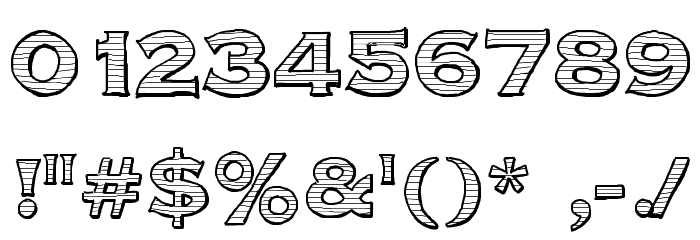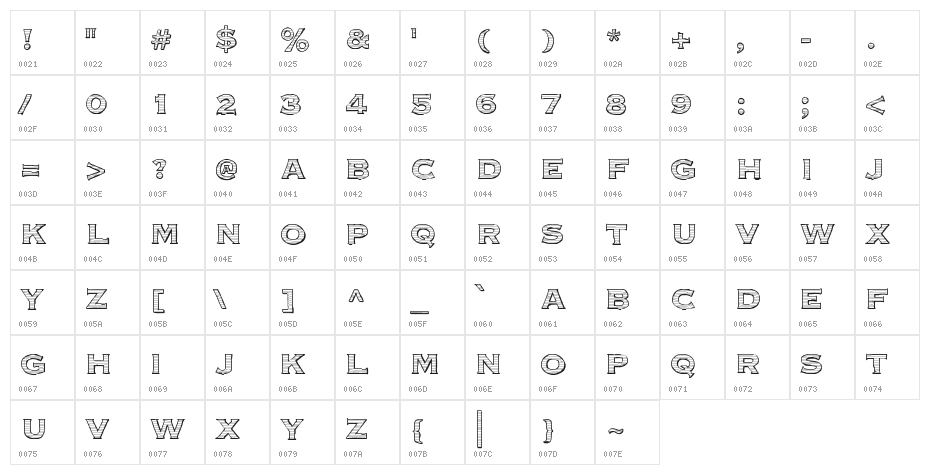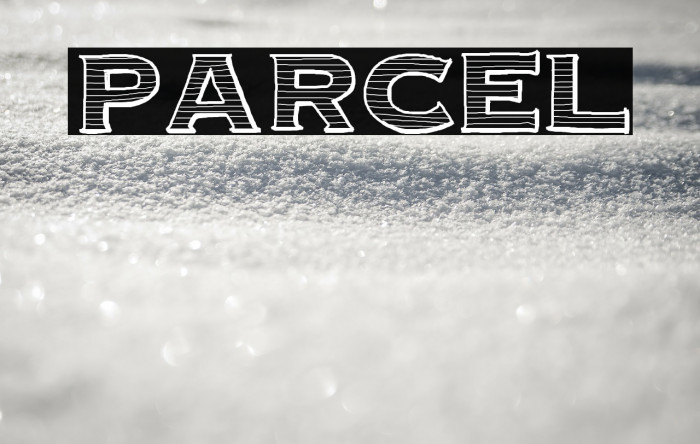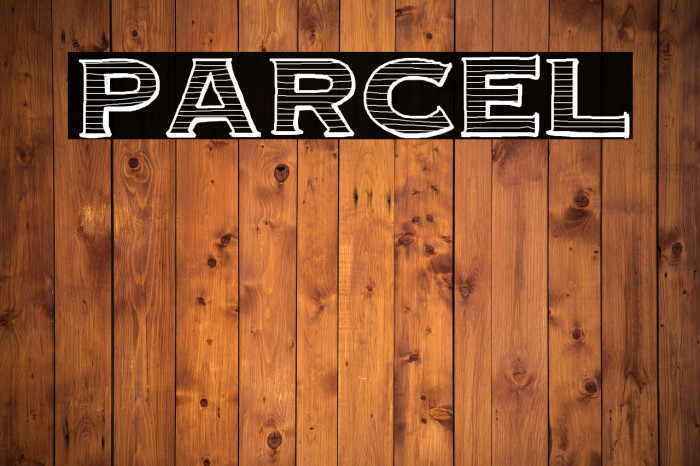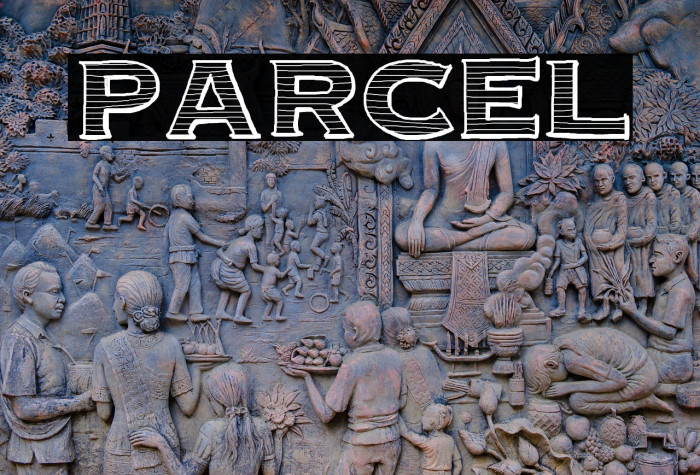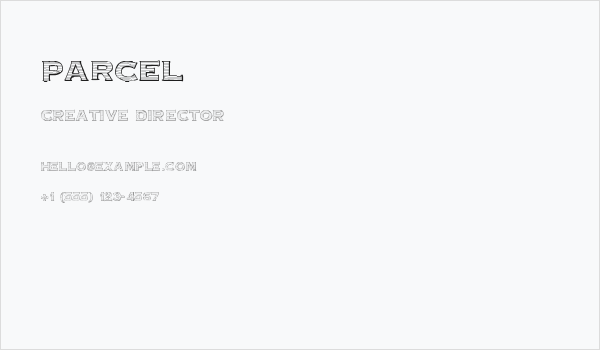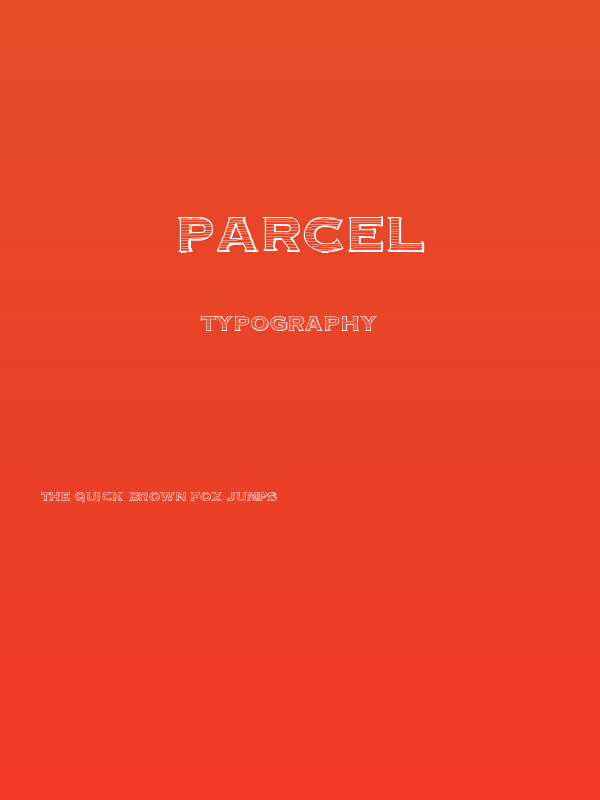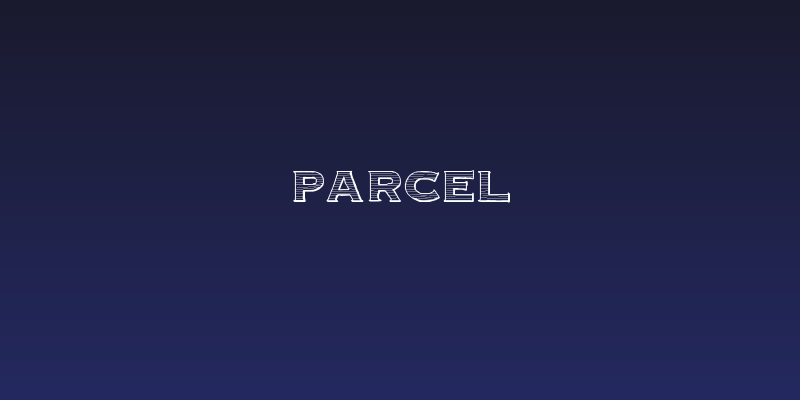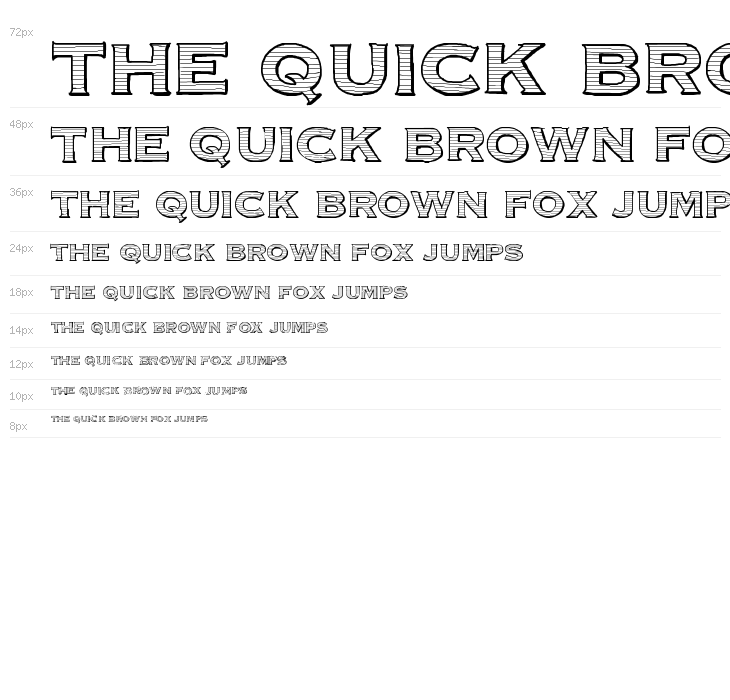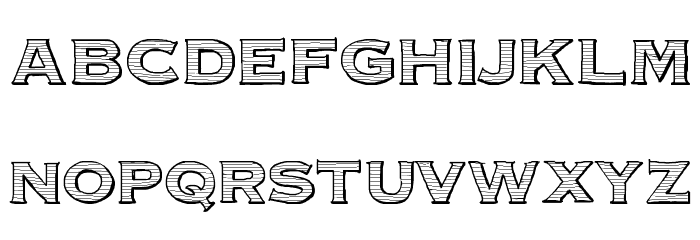
Parcel Font
Parcel Description
This font features a bold, decorative style with a unique striped pattern running through each character, giving it a three-dimensional effect. The uppercase letters are strong and prominent, while the lowercase letters maintain a consistent style, ensuring readability. The numerals are equally bold, matching the overall aesthetic of the alphabet. Special characters are included, each designed with the same attention to detail, making this font versatile for various uses. The consistent line work and spacing provide a cohesive look, ideal for making a statement in any design project.